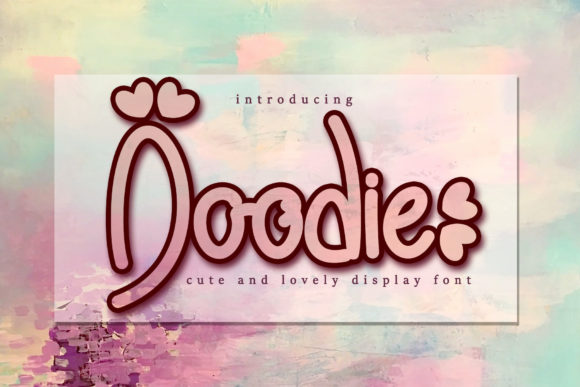
Prepare to be captivated by Doodie Font, the enchanting script font that will ignite your creativity and leave an unforgettable impression on your audience.
Doodie Font is the epitome of cuteness and simplicity, making it the ideal choice for those seeking an authentic and personal touch. Its meticulous hand-lettered design evokes the charm of chalkboard quotes and teaching materials, adding a touch of nostalgia and warmth to your projects.
But Doodie Font is not just a pretty face—it's also incredibly versatile. Its readability on LCD displays makes it perfect for website design, social media posts, and any digital platform where clarity is paramount.
Unleash your imagination with Doodie Font's PUA encoding, which grants you effortless access to a treasure trove of glyphs and swashes. Experiment with decorative flourishes, elegant accents, and stunning ligatures to create designs that will mesmerize your audience.
Whether you're a seasoned designer or just starting your creative journey, Doodie Font is your perfect companion. Its user-friendly interface and comprehensive character set make it accessible to all skill levels.
So why settle for ordinary when you can have extraordinary? Embrace the magic of Doodie Font today and elevate your designs to new heights. Its enchanting charm and versatility will captivate your audience and leave a lasting impression.